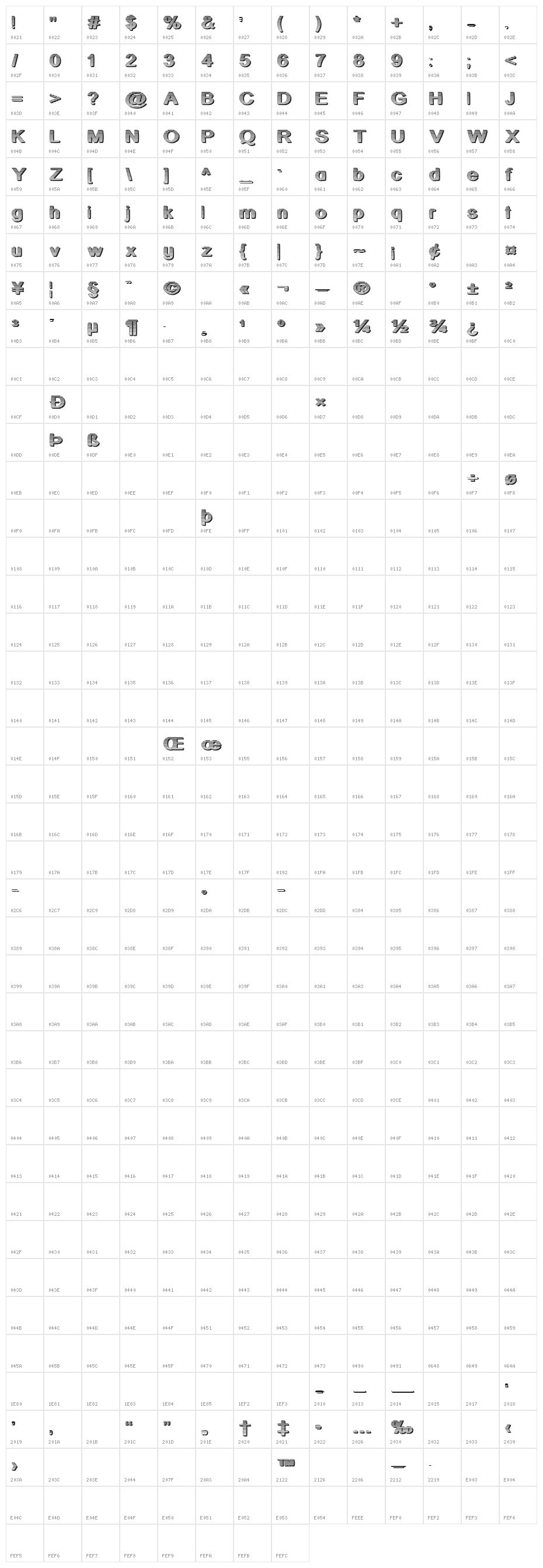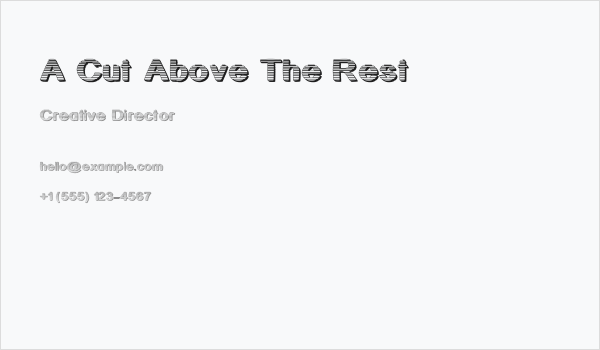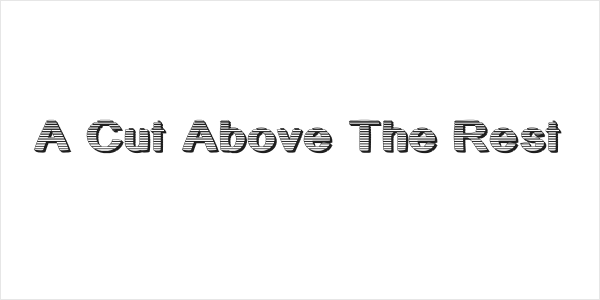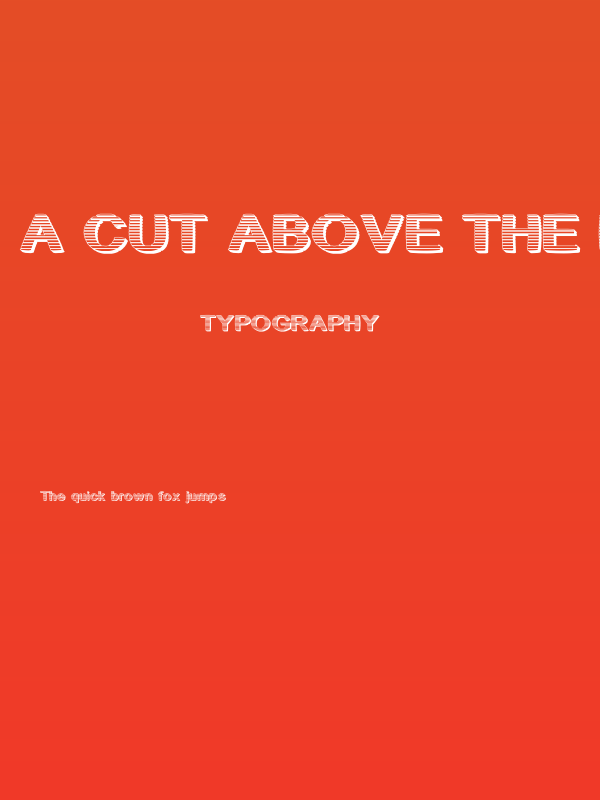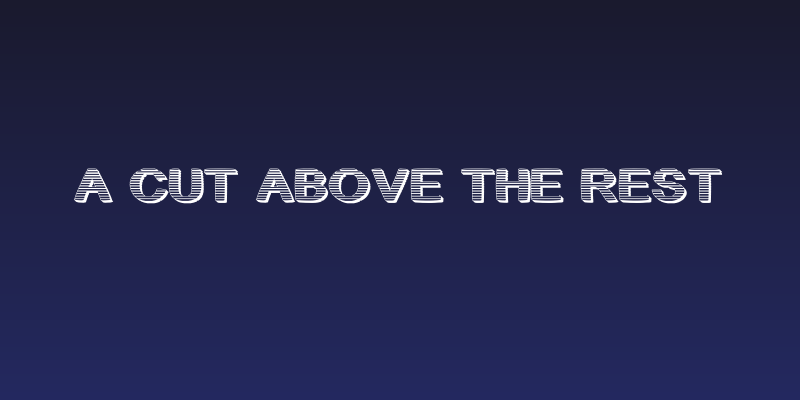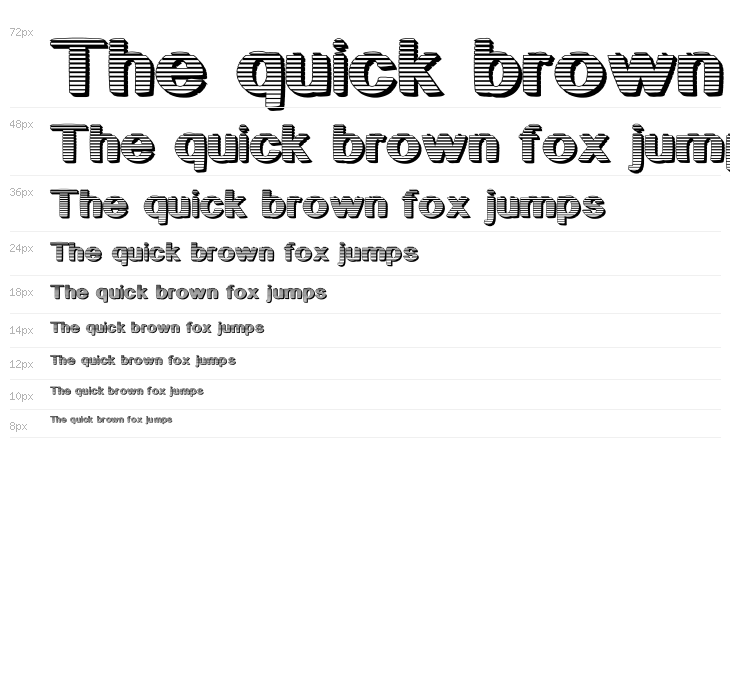
A Cut Above The Rest Font
This font features a bold, three-dimensional design with a striped pattern running horizontally across each character. The letters are uppercase and lowercase, with numerals and special characters included. The style is eye-catching and modern, with a playful yet structured appearance. The shadow effect adds depth, making it suitable for standout designs. The font's unique aesthetic makes it ideal for projects that require a strong visual impact.
Proposed ProjectsIdeal for posters, headlines, logos, and branding materials that require a bold and distinctive look.